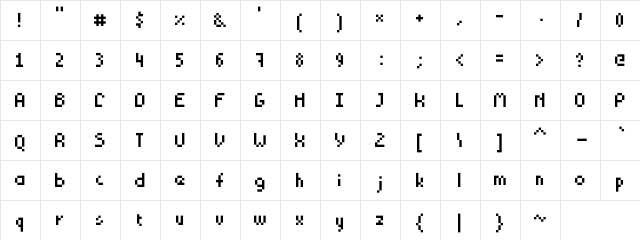
qtFace2 Regular Font Preview
qtFace2 Regular
qtFace2 Regular Font Details
Design Context for qtFace2 Typeface
qtFace2 is a composed and adaptable typeface that performs quietly and consistently across a wide range of design contexts.